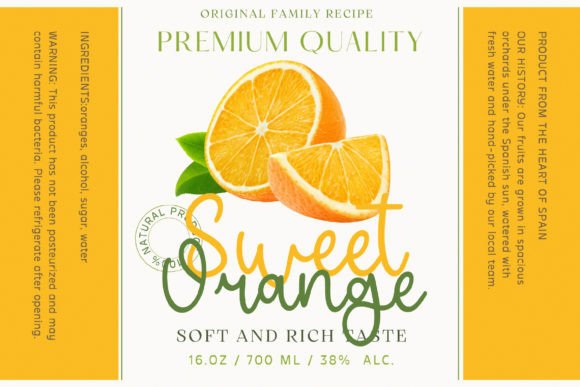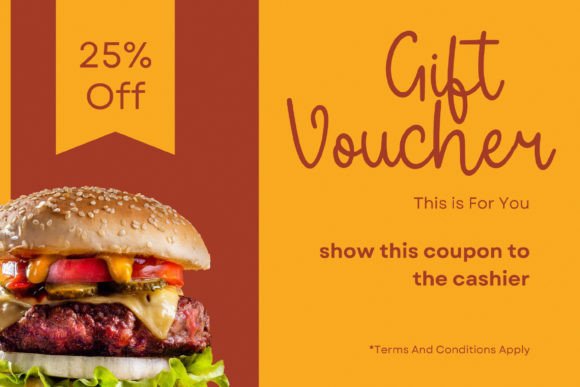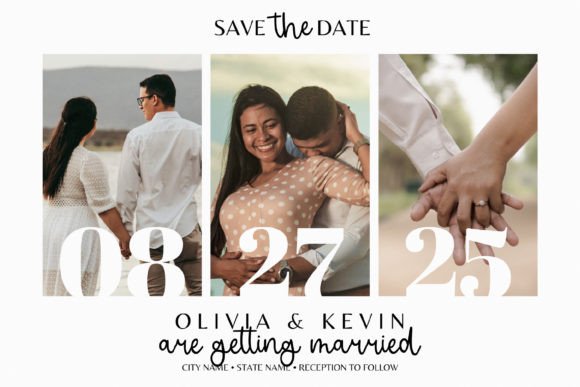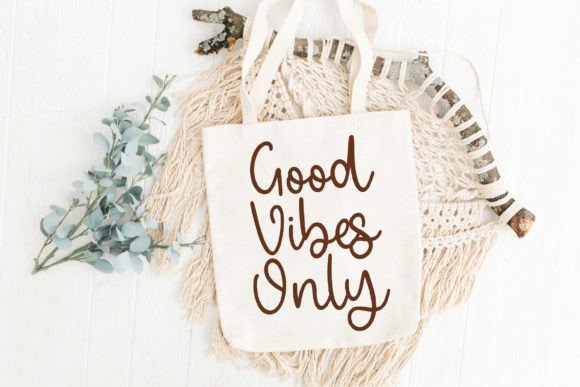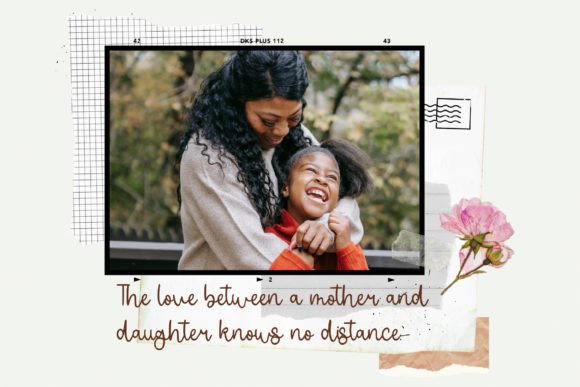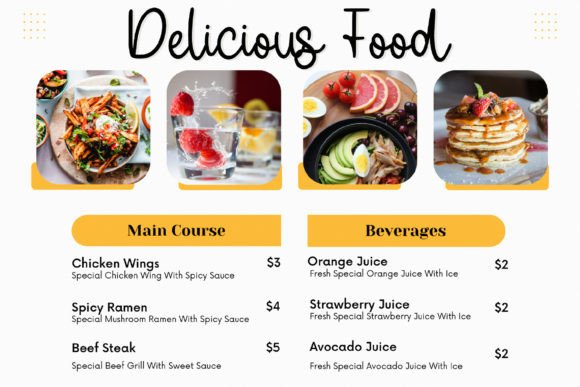
Introduction to Majistoque Font
As a designer, there’s nothing quite like the thrill of landing a creative project that pushes you to experiment with new ideas and techniques. For me, it’s that moment when I get to unleash my creativity and bring a concept to life. Recently, I stumbled upon the Majistoque Font, and I knew I had to dive in and explore its seductive charm. This font has an undeniable allure that makes it perfect for adding a touch of sophistication to any design project.
The Majistoque Font is a game-changer for designers seeking a high-quality design resource that can elevate their work. With its elegant, curvaceous letterforms and transparent background, this font is a must-have for any creative project. Whether you’re working on a luxury brand, a high-end packaging design, or a captivating headline, the Majistoque Font is sure to make your design stand out.
Key Features of Majistoque Font
- High-quality design resource ideal for creative projects requiring a unique touch
- Transparent background for seamless integration into various design elements
- Available in a range of font sizes and resolutions, including 300 DPI and 600 DPI
- Unique, hand-crafted design with intricate details and ornate flourishes
- Perfect for use in graphic design, digital art, and other creative endeavors
Honest Review: Majistoque Font
I recently stumbled upon the Majistoque Font, and I must say it’s a great addition to any designer’s toolkit. As a creative professional, I’m always on the lookout for high-quality design resources that can elevate my projects.
The Majistoque Font is a beautifully crafted font that shines with its elegant and sophisticated style. It’s perfect for any project that requires a touch of class and refinement. ✨ I particularly appreciate its transparent background, which makes it easy to integrate into various design elements.
Here are some of the features that make the Majistoque Font stand out:
- Transparent background for easy integration into various design elements
However, I did notice a few limitations with the Majistoque Font. ⚠️ For one, it may not be suitable for projects that require a bold or edgy font style. Additionally, the font may not be as versatile as some other options on the market.
Overall, I’m impressed with the Majistoque Font and would definitely recommend it to designers looking for a high-quality, elegant font for their creative projects.
Tips for Getting the Most Out of Majistoque Font
For a high-quality design, use Majistoque Font with a transparent background to create a clean and modern look. Experiment with different font sizes and styles to find the perfect combination for your creative project.
Majistoque Font is ideal for creating a unique and eye-catching design for your business, blog, or social media platform. Use it to add a touch of elegance and sophistication to your creative project.